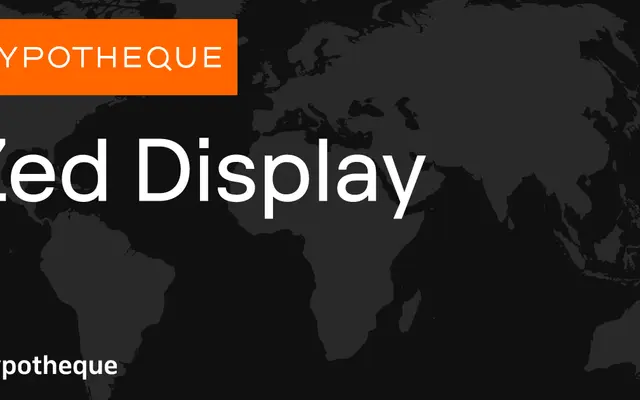
Zed Display specimen from Typotheque
A vast display sans system from Typotheque offering nine widths, nine weights, slanted and backslanted styles, a rounded subfamily and a variable font across more than two dozen named cuts.
Zed Display is part of the wider Zed system, which extends across Display, Round, Text and Icons subfamilies. The Display subfamily alone spans nine widths from Extra-Compressed to Extra-Wide, each available in nine weights from Hairline to Black, with upright, slanted and backslanted variants named after world cities. A variable font bundles the full width and weight range into a single file, making it practical for responsive and motion-heavy environments.
Zed Display is a large-width-axis display sans-serif system spanning nine widths from Extra-Compressed to Extra-Wide, with geometric construction and a companion Round subfamily. The display category reflects its explicit naming and the breadth of width variants optimised for headline use.